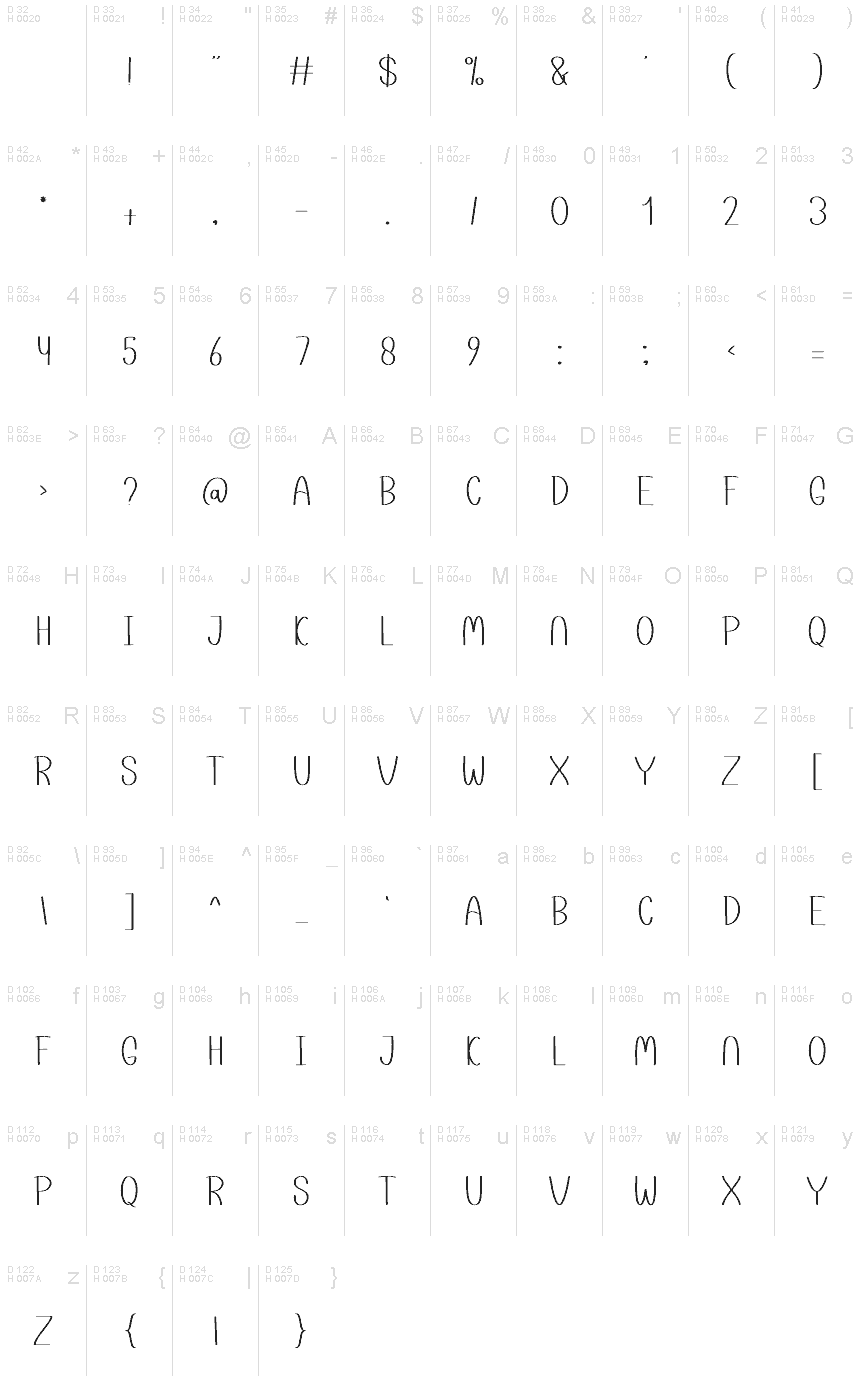
First Summer
First Summer font by Andi Moz is a free handwritten font with a light handwritten style. The elegant font carries a minimalist artistic appearance throughout its delicately elongated letters. Combining modern aspects with classic elegance, First Summer brings out that warm and romantic feel of the spring season.